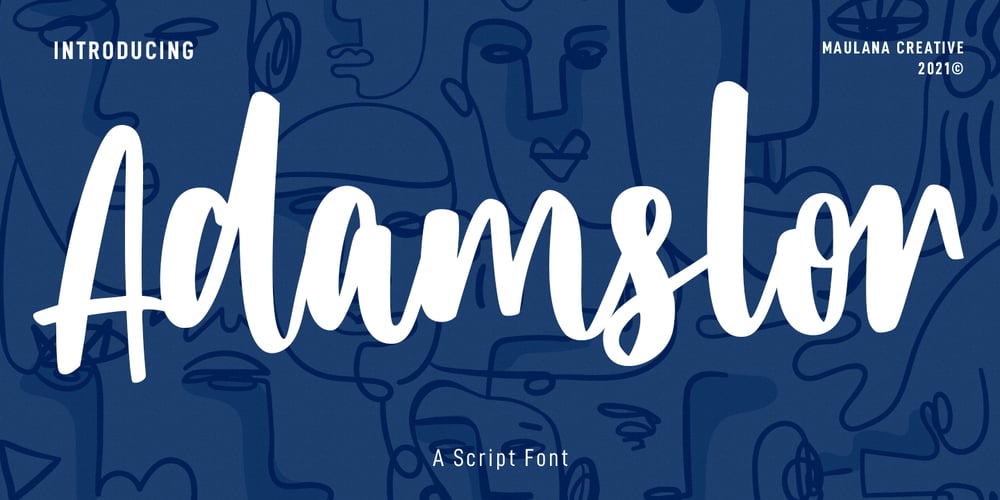
Adamslor Font Family was designed by Gilang Maulana and published by Maulana Creative. Adamslor contains 2 styles and family package options. Adamslor is a handwritten script font. With high contrast bold stroke, fun character with a bit of ligatures and has a two files lowercase alternates. To give you an extra creative work. Adamslor font support multilingual more than 100+ language. This font is good for logo design, Social media, Movie Titles, Books Titles, a short text even a long text letter and good for your secondary text font with sans or serif. Make a stunning work with Adamslor font. Cheers,Maulana Creative